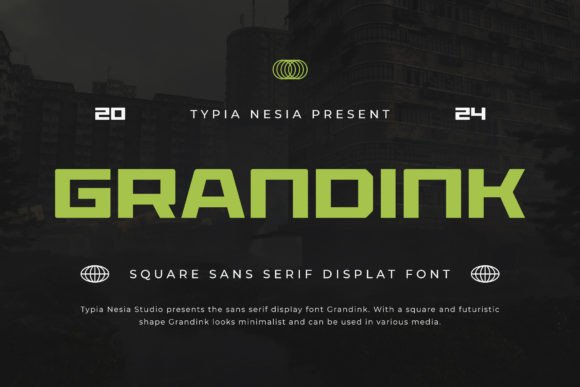
Introducing Grandink Font: The Ultimate Square Sans Display Font for Modern Designs
In the world of typography, fonts play a crucial role in conveying the message and aesthetic of a design. With the ever-evolving trends in graphic design, it’s essential to have a font that can keep up with the demands of modernity. This is where Grandink Font comes in – a square sans display font that merges modernity with a sleek, geometric design. In this article, we’ll explore the features, benefits, and uses of Grandink Font, and why it’s the perfect choice for designers looking to create bold and impactful designs.
Key Features of Grandink Font
- Clean and Square-Edged Characters: Grandink Font boasts clean, square-edged characters that offer a contemporary and professional appearance. This makes it perfect for projects that require a bold and modern touch.
- Comprehensive Character Set: The font includes a full set of uppercase and lowercase letters, punctuation, numerals, and alternate characters, ensuring that you have everything you need to create stunning designs.
- Ligatures for Smooth Character Combinations: Grandink Font comes equipped with ligatures, which allow for smooth character combinations, enhancing the overall aesthetic of your design.
- Multilingual Support: The font offers extensive multilingual support, making it a versatile choice for global use.
Perfect for a Variety of Projects
Grandink Font is perfect for a wide range of projects that require a bold and modern touch. Some examples include:
- Branding: Use Grandink Font to create a strong and recognizable brand identity that stands out from the competition.
- Posters and Headlines: The font’s bold and modern design makes it perfect for creating eye-catching posters and headlines.
- Signage: Grandink Font’s clean and square-edged characters ensure that your signage is easy to read and visually appealing.
- Digital Media: The font is optimized for digital use, making it perfect for websites, social media, and other online applications.
- Advertising and Marketing Materials: Use Grandink Font to create bold and attention-grabbing ads and marketing materials.
- Sports Equipment: The font’s modern and sleek design makes it perfect for sports equipment and apparel.
- Product Packaging: Grandink Font can add a touch of modernity and sophistication to your product packaging.
Benefits of Using Grandink Font
So, why choose Grandink Font for your design projects? Here are just a few benefits:
- Enhances Visual Impact: Grandink Font’s bold and modern design enhances the visual impact of any design, making it perfect for projects that require a strong aesthetic.
- Versatile and Flexible: The font is perfect for both print and digital applications, ensuring that your text stands out with clarity and precision.
- Designed with Precision: Grandink Font is designed with precision and a focus on modern typographic trends, ensuring that your designs are both aesthetically pleasing and functional.
Why Designers Love Grandink Font
Grandink Font is a reliable choice for designers looking to create impactful and professional designs. Here are just a few reasons why:
- Readability and Aesthetic Appeal: The font’s meticulously crafted characters ensure readability and aesthetic appeal, making it perfect for designs that require both form and function.
- Supports Creative Needs: Grandink Font comes equipped with a comprehensive set of features to support your creative needs, including ligatures, alternate characters, and multilingual support.
- Blends Form and Function: The font seamlessly blends form and function, making it a versatile choice for a wide range of design projects.
In conclusion, Grandink Font is the ultimate square sans display font for modern designs. With its clean and square-edged characters, comprehensive character set, and extensive multilingual support, it’s perfect for a wide range of projects that require a bold and modern touch. Whether you’re a designer looking to create impactful and professional designs or a business looking to establish a strong brand identity, Grandink Font is the perfect choice.